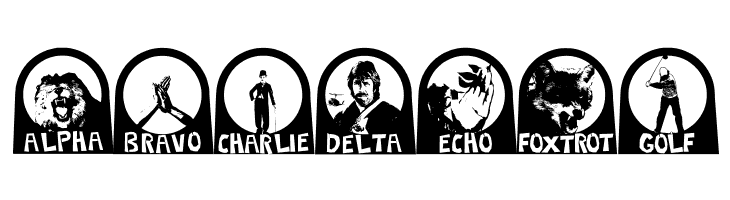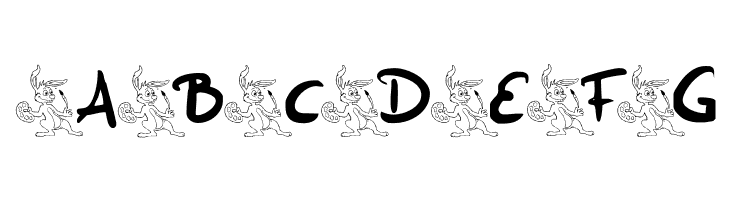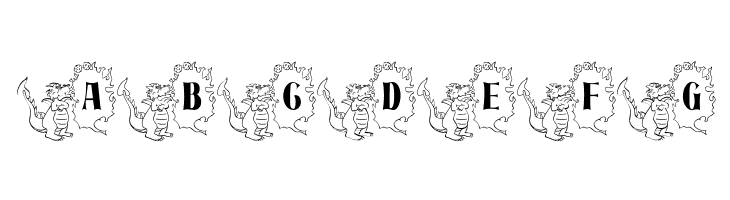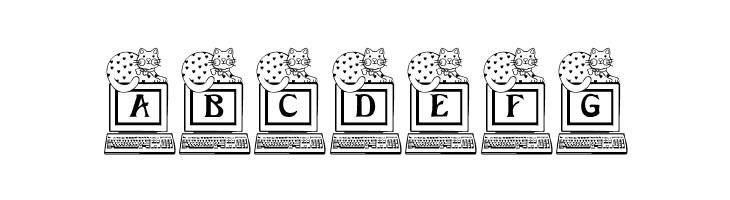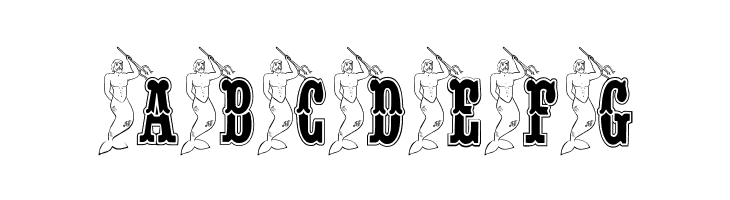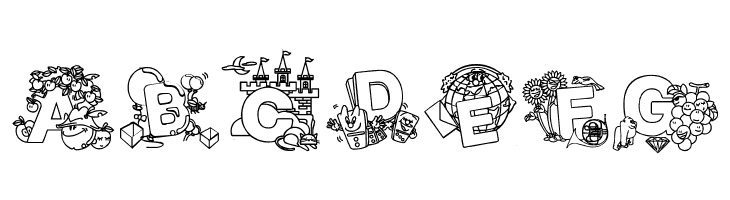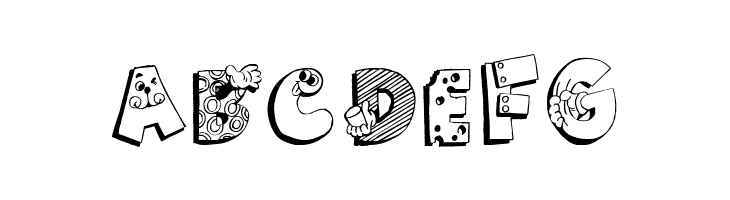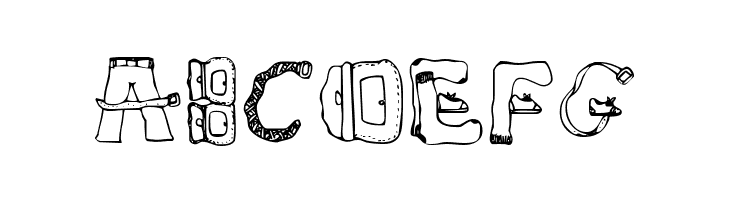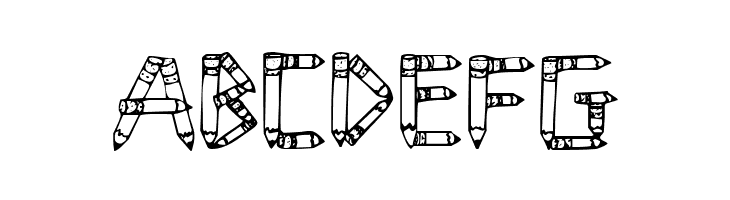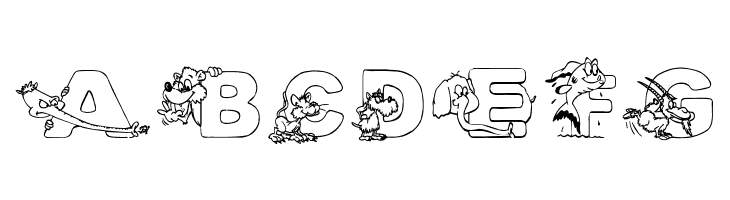
A bold, illustrative font depicting the NATO phonetic alphabet with unique graphics.
A playful, bunny-themed decorative font with a hand-drawn, cartoonish style.
A playful, dragon-themed decorative font perfect for fantasy projects.
A playful font with cat illustrations integrated into each character.
A bold, decorative font with merman-themed characters and thick outlines.
A playful, decorative font with whimsical illustrations on each letter.
A playful, decorative font with unique patterns and textures in each letter.
A playful, clothing-themed decorative font with a hand-drawn style.
A playful, pencil-themed decorative font ideal for creative projects.
A whimsical, cartoonish font with unique illustrations in each character.